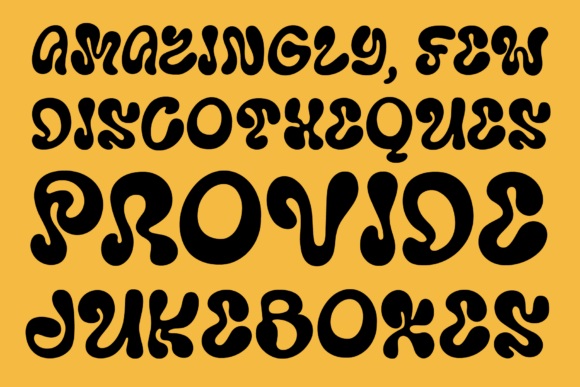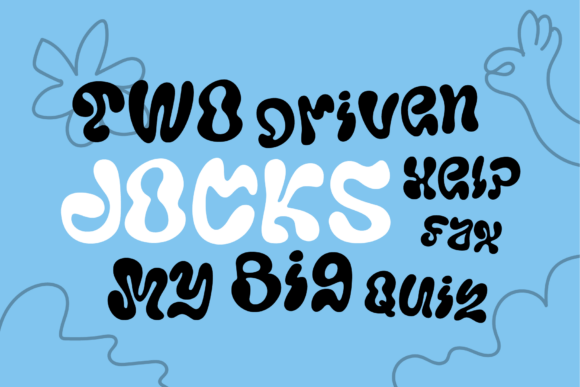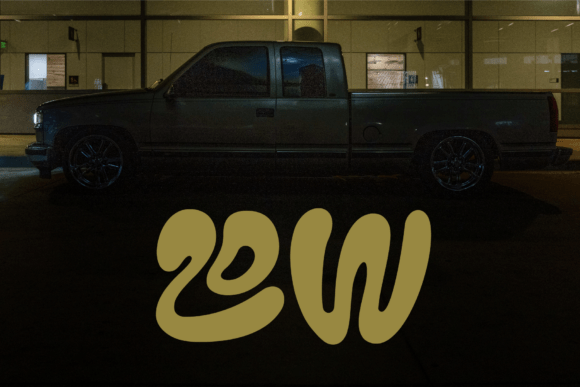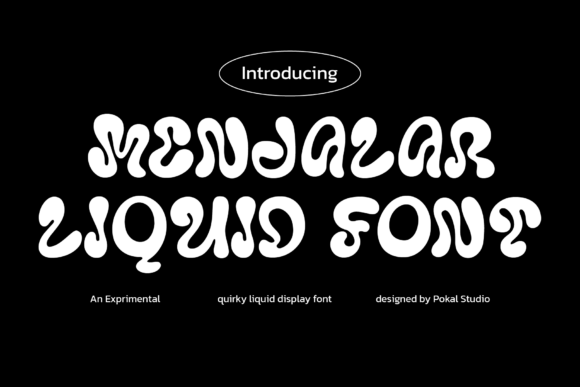
Introduction to Menjalar Liquid Font
Menjalar Liquid is an experimental liquid display font crafted with bold, wavy forms and a quirky, hand-melted character style.
This typeface flows with playful curves and expressive shapes, perfect for brands and creatives looking for something unique, energetic, and visually striking This font oozes personality with its thick, rounded, and flowing letterforms, giving the impression of melted plastic or slow-moving water.
Key Features of Menjalar Liquid Font